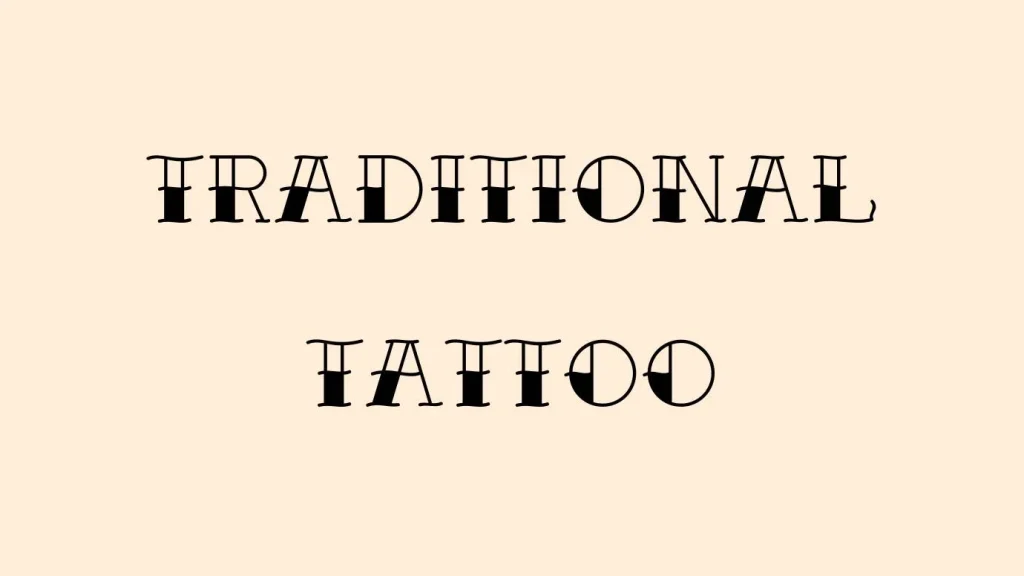
It has a lovely character in its design which creates amazing pair with another similar typeface for the best results. This text style contains a clear and
Biroakakarati created this amazing design known as Traditional Tattoo Font which is a fancy text style. A sleek and strong typeface with all image characters, it makes a solid design for any content. These designs are unique and beautiful.
It has a lovely character in its design which creates amazing pair with another similar typeface for the best results. This text style contains a clear and perfect design effectively visible by its appearance.
This font is the perfect choice for all of your designs if you are seeking a modern, stylish font. The generator tool of this family can be used. It is an awesome typeface with a very unique style, it can be used for various purposes, including headlines, logos, branding, and more.
Reasons to Use Traditional Tattoo Font
This tool is great for awesome designs. This typeface is best for thumbnail designs, theme designs, and other design projects; this stunning typeface is often selected by designers.
The font is incredible for creating rich and artistry designs. Make the art more fun since you have chosen the correct textual style. Achieve a harmonious and precise design by combining the typeface style with complementary fonts like the glober font, conveniently accessible on our website.
The typeface does have a clean, natural appearance that makes it perfect for projects that call for a unique feel. It is a fantastic option for projects that require an original and imaginative touch.
Traditional Tattoo typeface is the unique text style for all your fun designs it is a fancy typeface.